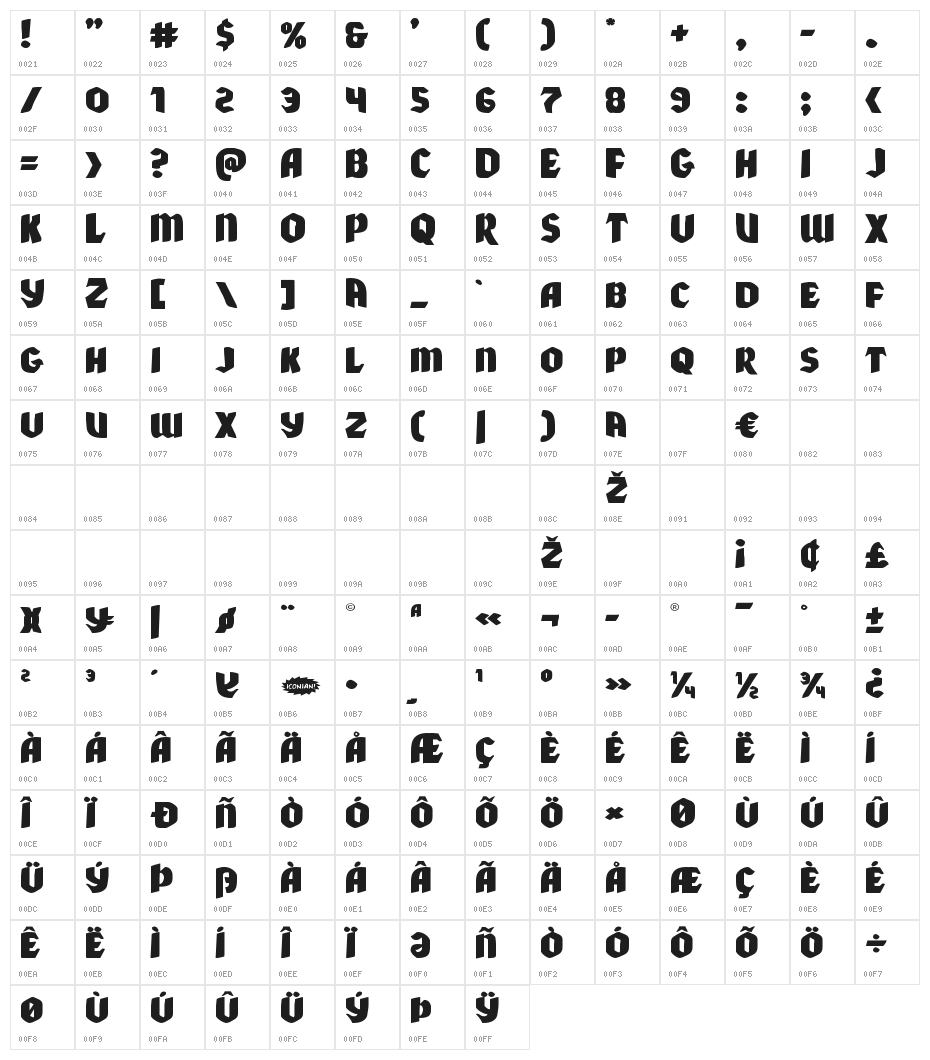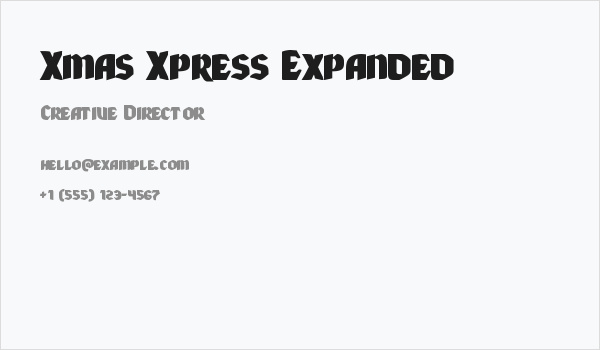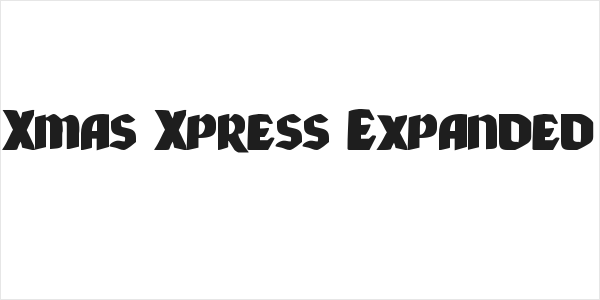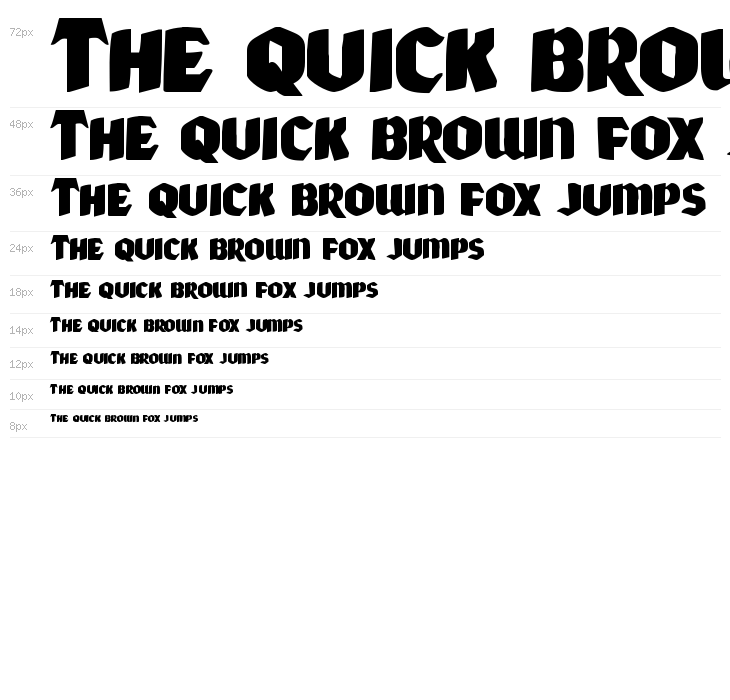
Xmas Xpress Expanded Font
Xmas Xpress Expanded Description
This font features a bold and playful design, characterized by its chunky and robust letterforms. The strokes are thick and uniform, giving it a strong presence. The edges are slightly rounded, adding a touch of softness to the otherwise bold appearance. The font has a festive and decorative style, making it ideal for holiday-themed projects. It includes both uppercase and lowercase letters, numbers, and a variety of special characters. The overall design is eye-catching and perfect for creating a cheerful and lively atmosphere.
| Overall Style | Festive, Playful |
| Proposed Projects | Ideal for holiday cards, festive banners, party invitations, and seasonal advertisements. |